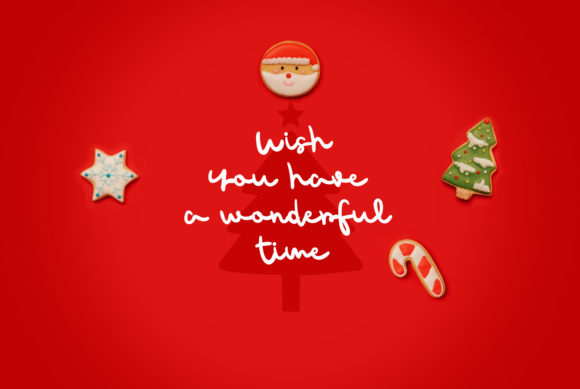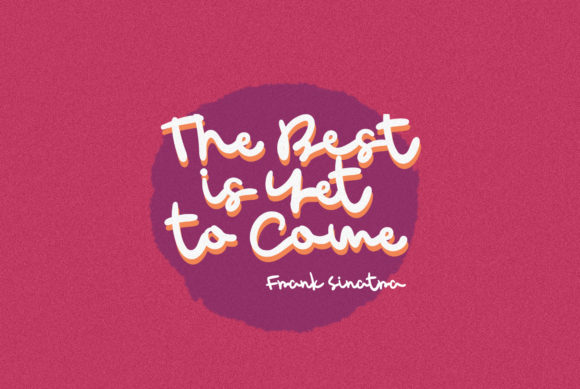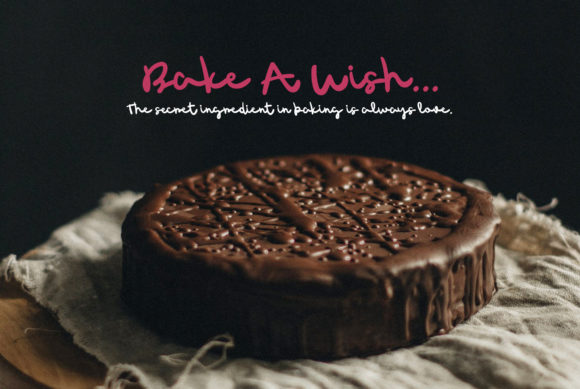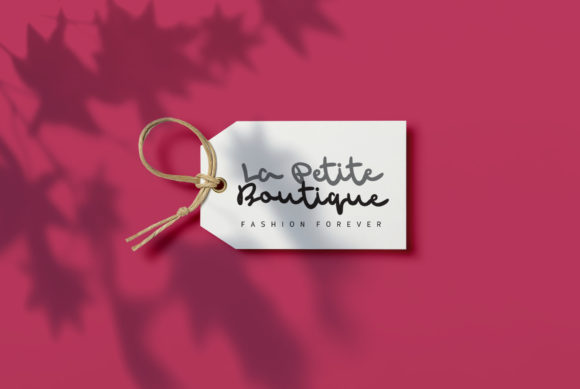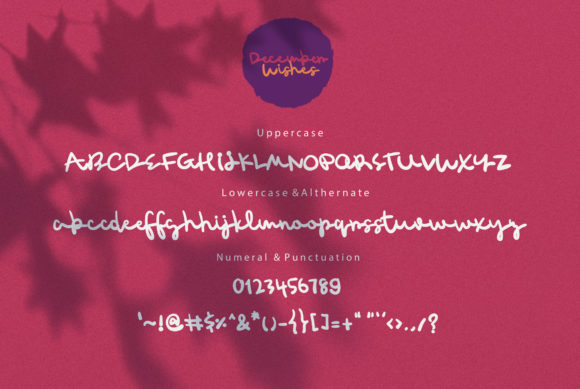
December Wishes Font: A Playful and Fun Handwritten Font for Your Creative Projects
Are you looking for a font that can add a touch of playfulness and festivity to your designs? Look no further than the December Wishes font! This handwritten font is perfect for creating fun and memorable projects that will bring a smile to your audience’s faces. In this article, we’ll explore the features and benefits of the December Wishes font, and how you can use it to elevate your designs.
What is December Wishes Font?
December Wishes is a handwritten font that is playful, weighty, and fun. It’s a versatile font that can be used for a wide range of creative projects, from branding and product packaging to invitation cards, magazines, t-shirts, labels, posters, and logos. The font’s playful and whimsical nature makes it perfect for festive and holiday-themed designs, but it’s also suitable for everyday use.
Key Features of December Wishes Font
- Playful and Handwritten: December Wishes font has a playful and handwritten feel that gives it a personal and unique touch.
- Weighty and Fun: The font has a weighty and fun feel that makes it perfect for creating bold and eye-catching designs.
- Versatile: December Wishes font can be used for a wide range of creative projects, from digital designs to print materials.
- Easy to Read: Despite its playful nature, the font is easy to read and understand, making it perfect for body text and headlines.
Benefits of Using December Wishes Font
So, why should you use December Wishes font for your creative projects? Here are just a few benefits:
- Adds a Personal Touch: The handwritten nature of December Wishes font gives your designs a personal and unique touch that sets them apart from others.
- Creates a Festive Atmosphere: The playful and whimsical nature of the font makes it perfect for creating festive and holiday-themed designs that will put your audience in a celebratory mood.
- Versatile and Adaptable: December Wishes font can be used for a wide range of creative projects, making it a versatile and adaptable font to have in your collection.
How to Use December Wishes Font
- Branding and Product Packaging: Use December Wishes font to create unique and eye-catching branding and product packaging that will stand out on store shelves.
- Invitation Cards and Party Decor: Create festive and fun invitation cards and party decor using December Wishes font.
- Magazines and Blogs: Use the font to add a playful touch to your magazine or blog designs.
- T-Shirts and Apparel: Create fun and memorable t-shirts and apparel using December Wishes font.
Tips and Tricks for Using December Wishes Font
Here are a few tips and tricks to help you get the most out of December Wishes font:
- Experiment with Colors: December Wishes font looks great in bold and bright colors, so don’t be afraid to experiment and find the perfect color scheme for your design.
- Mix and Match Fonts: Try pairing December Wishes font with other fonts to create a unique and eye-catching design.
- Use it for Headlines and Body Text: December Wishes font is easy to read, making it perfect for both headlines and body text.
December Wishes font is a playful and fun handwritten font that’s perfect for creating festive and memorable designs. With its versatile nature and easy-to-use design, it’s a great addition to any designer’s or crafter’s collection. Whether you’re creating branding and product packaging, invitation cards, or t-shirts, December Wishes font is sure to bring a smile to your audience’s faces. So why not give it a try and see what creative projects you can come up with?